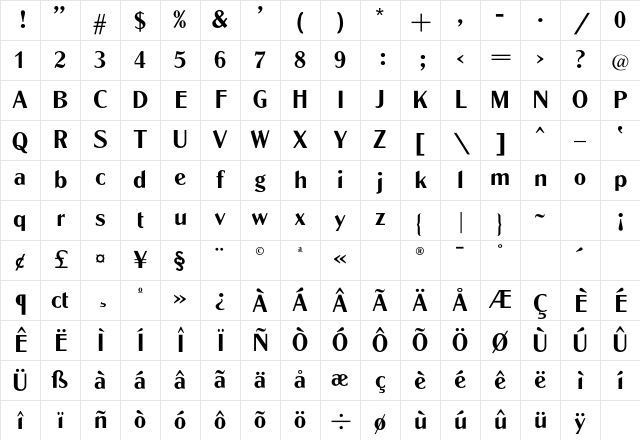
GlobeL Regular Free Font
GlobeL Regular
Design Context for GlobeL
GlobeL is a composed and adaptable typeface that performs quietly and consistently across a wide range of design contexts.